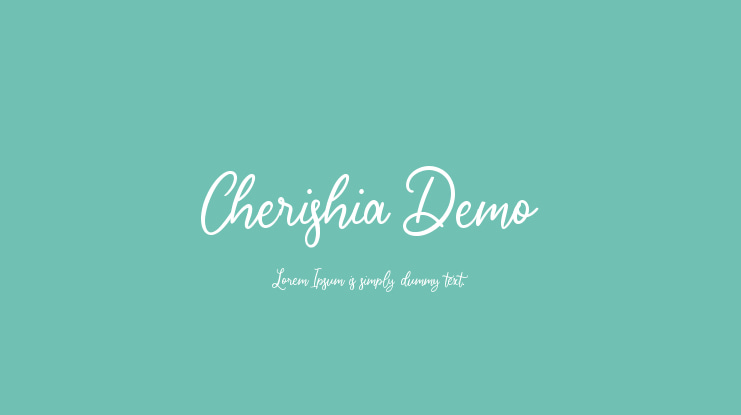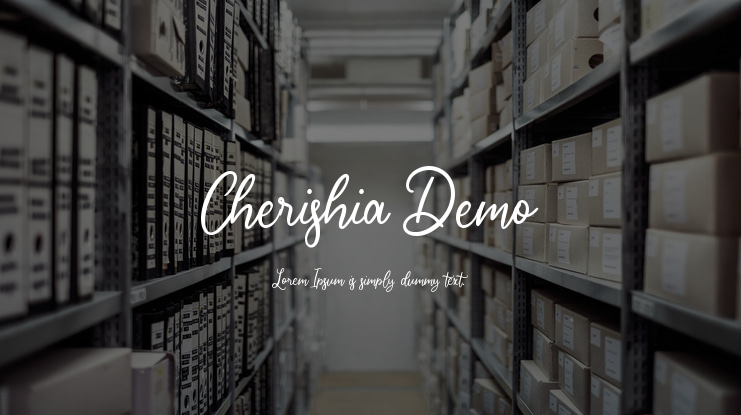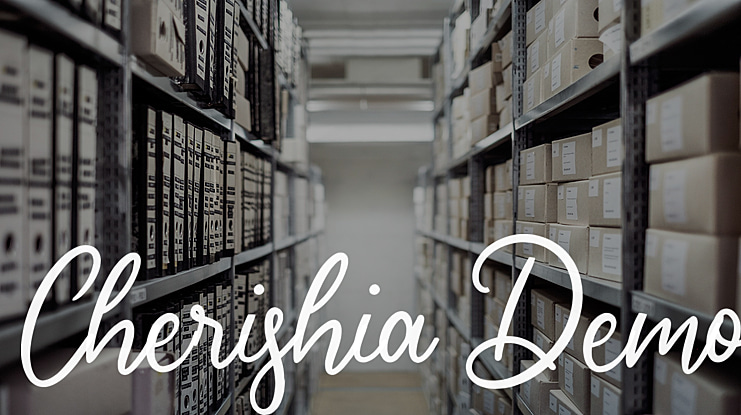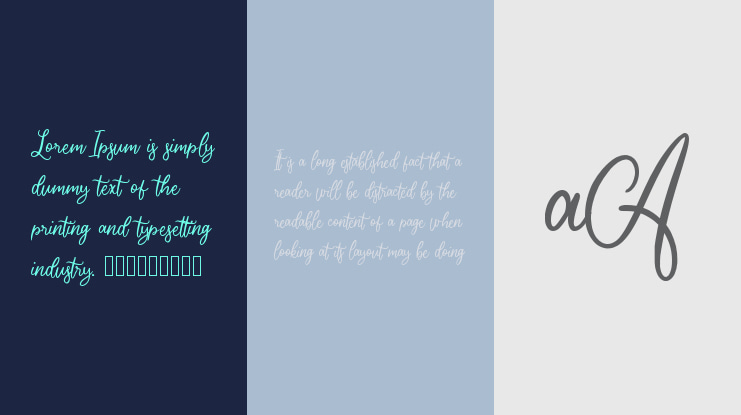
Cherishia Demo Font
Introducing “ Cherishia Romantic Script “ an adorable handlettering calligraphy typeface with cursive style. Perfect for adding a fresh & unique look to company branding, logos, greetings, magazine layout, homeware, prints and invitations.